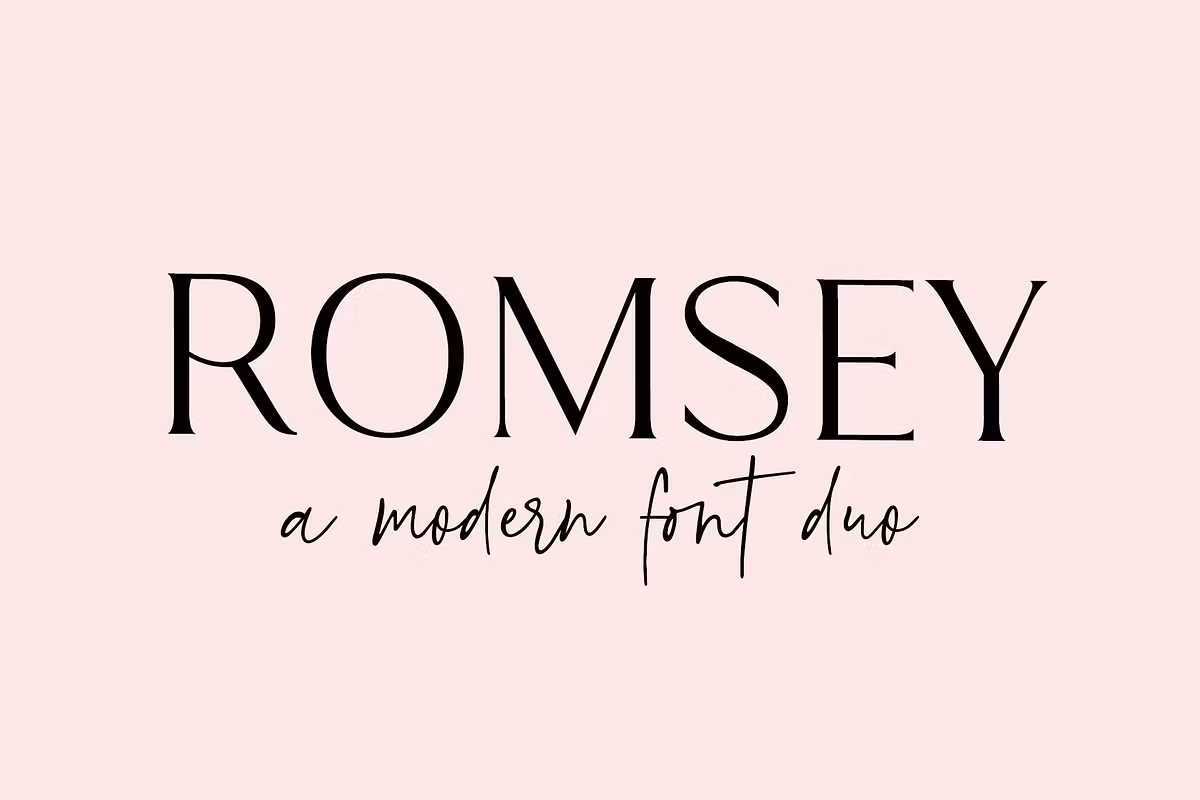
Romsey / Modern Serif Font Duo Free Download
Romsey / Modern Serif Font Duo Free Download is a stylish and versatile font pair that combines the sophistication of a modern serif with the elegance of a complementary script. The serif font offers sharp lines and a clean, professional design, while the script font adds a fluid, handwritten touch that brings personality and warmth to your typography.
This duo is perfect for a wide range of design projects, from logos and branding to invitations, social media graphics, and high-end marketing materials. Whether you're working on a chic brand identity or a romantic wedding invitation, Romsey gives you the flexibility to create balanced, stylish designs with ease.